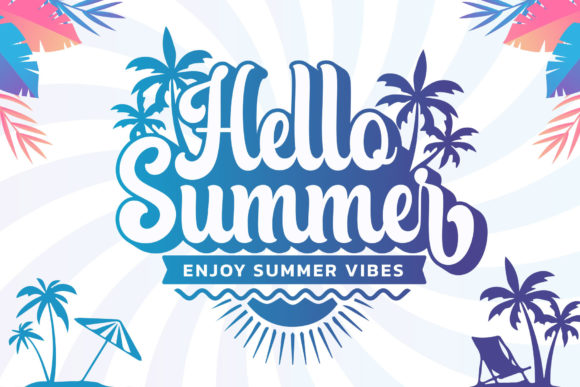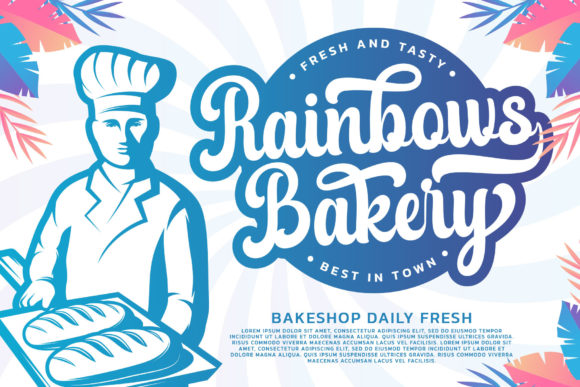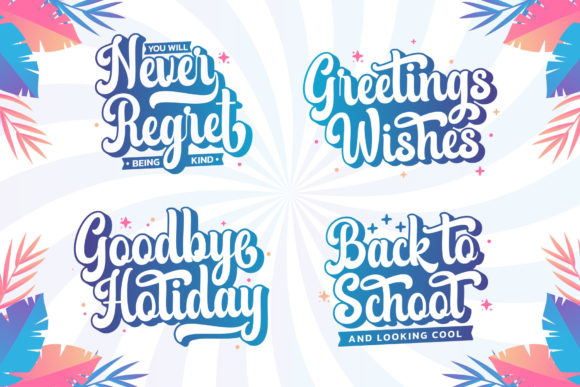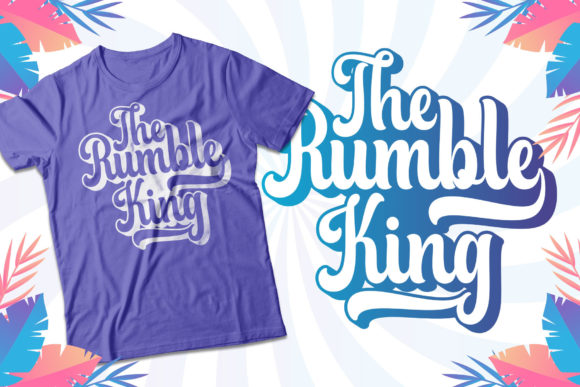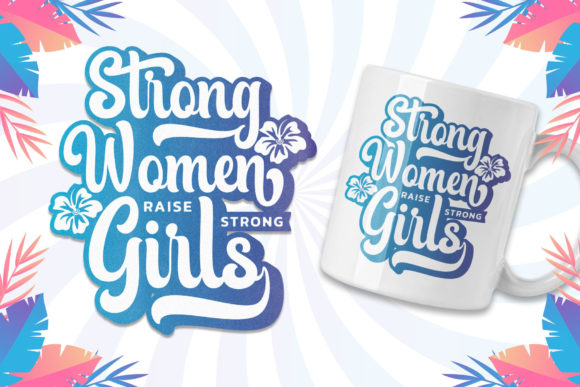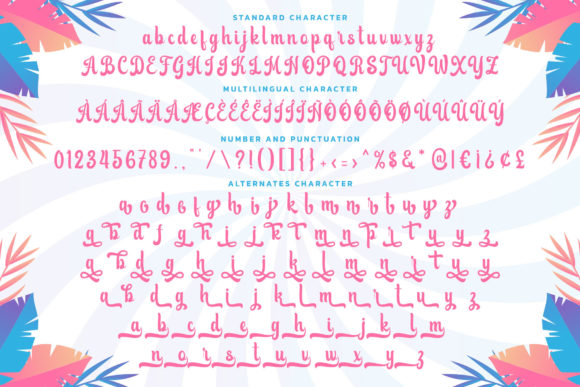
Unleash Your Creativity with Beauty Magical Font
Are you a designer, crafty enthusiast, or social media influencer looking for a font that can add a touch of magic to your designs? Look no further than the Beauty Magical Font, a gorgeous and playful script font that is sure to elevate your creative projects to the next level. In this article, we’ll dive into the features and benefits of this stunning font and explore how it can be used to add tons of stylish character to your designs.
What is Beauty Magical Font?
Beauty Magical Font is a beautifully crafted script font that is designed to bring a touch of elegance and whimsy to your designs. With its flowing lines and intricate details, this font is perfect for creating stunning visual content that stands out from the crowd. Whether you’re designing a logo, branding materials, invitations, stationery, wedding designs, or social media posts, Beauty Magical Font is the perfect choice.
One of the standout features of Beauty Magical Font is its PUA (Private Use Area) encoding. This means that you can access all of the glyphs and swashes with ease, giving you complete creative control over your designs. With PUA encoding, you can easily insert special characters, ligatures, and other unique elements that will make your designs truly special.
Beauty Magical Font is an incredibly versatile font that can be used for a wide range of design projects. Here are just a few ideas to get you started:
- Logos and branding: Create a stunning logo for your business or brand that stands out from the competition.
- Invitations and stationery: Design beautiful invitations, greeting cards, and stationery that will leave a lasting impression.
- Wedding designs: Create stunning wedding invitations, programs, and decorations that will make your special day truly unforgettable.
- Social media posts: Add a touch of magic to your social media posts and make them stand out from the crowd.
Why Choose Beauty Magical Font?
So why choose Beauty Magical Font over other fonts on the market? Here are just a few reasons:
- Unique and stylish: Beauty Magical Font is a truly unique and stylish font that will add a touch of elegance and whimsy to your designs.
- Easily accessible: With PUA encoding, you can easily access all of the glyphs and swashes, making it easy to create stunning designs.
- High-quality: Beauty Magical Font is a high-quality font that is designed to produce crisp and clear results, even at small sizes.
- Versatile: This font can be used for a wide range of design projects, from logos and branding to invitations and social media posts.
Tips for Using Beauty Magical Font
Here are a few tips for getting the most out of Beauty Magical Font:
- Experiment with different sizes and colors: Don’t be afraid to experiment with different sizes and colors to find the perfect combination for your design.
- Use it with other fonts: Beauty Magical Font pairs well with other fonts, so don’t be afraid to use it in combination with other typefaces.
- Pay attention to spacing and kerning: Make sure to pay attention to spacing and kerning to ensure that your text is easy to read and visually appealing.
| Author | Hoperative Design |
In conclusion, Beauty Magical Font is a stunning and versatile script font that is perfect for designers, crafty enthusiasts, and social media influencers looking to add a touch of magic to their designs. With its PUA encoding, unique and stylish design, and endless possibilities for use, this font is sure to become a favorite in your design arsenal. So why wait? Download Beauty Magical Font today and start creating stunning designs that will leave a lasting impression!